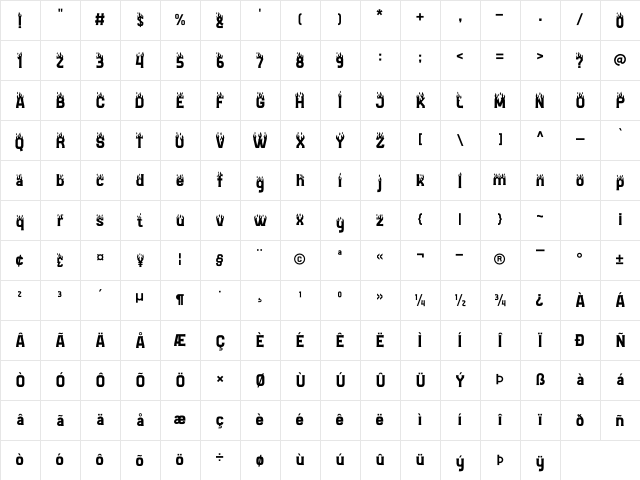
VAGUARD Regular Free Font
VAGUARD Regular
Designer: Typeline Studio 2022
Design Context for VAGUARD
VAGUARD is a composed and adaptable typeface that performs quietly and consistently across a wide range of design contexts.